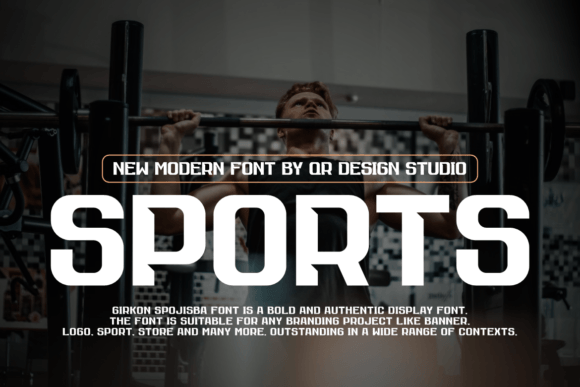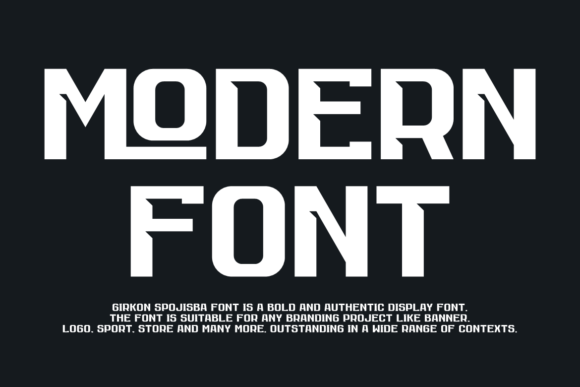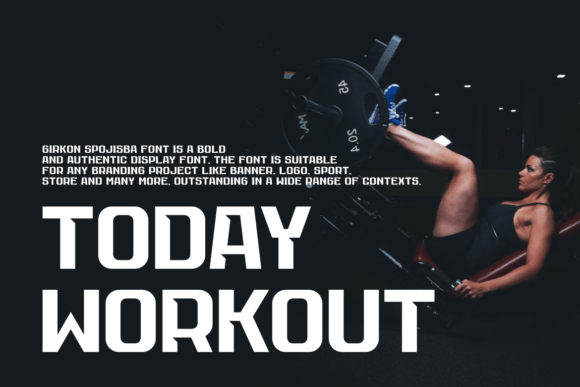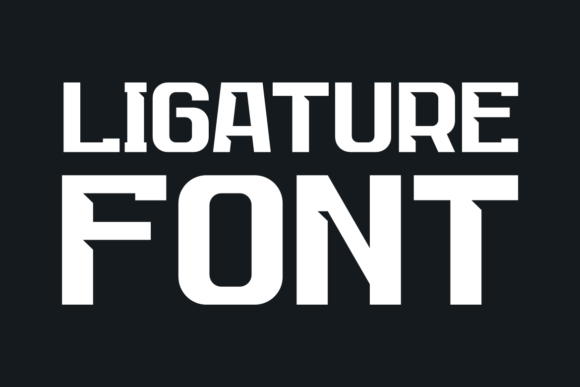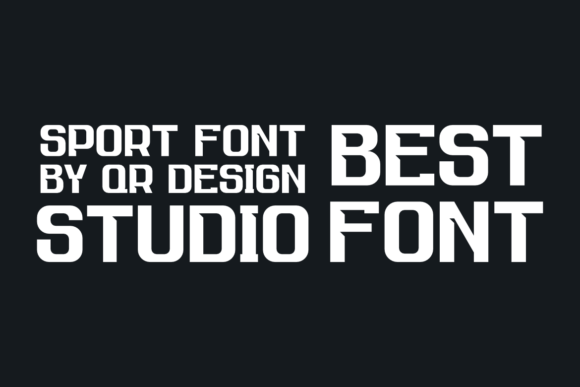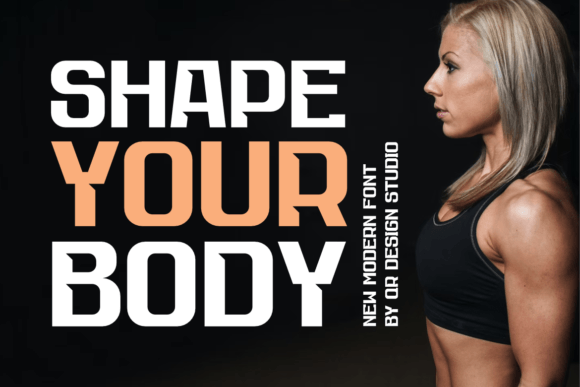
Girkon Spojisba Font: A Bold and Authentic Display Font for Your Branding Projects
In the world of typography, a font can make or break a design. A well-chosen font can elevate your brand’s visual identity, convey the right message, and leave a lasting impression on your audience. If you’re a designer, craftsperson, or entrepreneur looking for a bold and authentic display font, look no further than Girkon Spojisba Font. In this article, we’ll explore the features, benefits, and uses of this versatile font, and why it’s a must-have for your branding projects.
What is Girkon Spojisba Font?
Girkon Spojisba Font is a bold and authentic display font designed to make a statement. With its unique and eye-catching design, this font is perfect for creating logos, sport-related branding, and a wide range of other projects that require a strong visual presence. The font comes in two formats: OTF (OpenType) and TTF (TrueType), making it compatible with most design software and platforms.
Key Features of Girkon Spojisba Font
- Bold and Authentic Design: Girkon Spojisba Font boasts a bold and authentic design that’s sure to grab attention. Its unique character set and carefully crafted letterforms make it stand out from the crowd.
- Versatile and Flexible: This font is suitable for a wide range of branding projects, from logos and sport-related branding to posters, flyers, and more.
Benefits of Using Girkon Spojisba Font
So, why choose Girkon Spojisba Font for your branding projects? Here are just a few benefits of using this versatile font:
- Stand Out from the Crowd: With its bold and authentic design, Girkon Spojisba Font is sure to make your brand stand out from the competition.
- Professional and Polished Look: This font gives your brand a professional and polished look that’s perfect for businesses, organizations, and individuals looking to establish a strong visual identity.
Who Can Use Girkon Spojisba Font?
Girkon Spojisba Font is perfect for a wide range of designers, craftspersons, and entrepreneurs, including:
- Graphic Designers: Add a bold and authentic touch to your branding projects, logos, and marketing materials.
- Crafters and Makers: Use Girkon Spojisba Font to create eye-catching labels, packaging, and branding for your handmade products.
- Entrepreneurs and Small Business Owners: Establish a strong visual identity for your business with a professional and polished font.
- Marketing and Advertising Agencies: Use Girkon Spojisba Font to create attention-grabbing campaigns and marketing materials for your clients.
In conclusion, Girkon Spojisba Font is a bold and authentic display font that’s perfect for any branding project that requires a strong visual presence. With its versatile design, high-quality formats, and ease of use, this font is a must-have for designers, craftspersons, and entrepreneurs looking to establish a professional and polished visual identity. Whether you’re creating logos, sport-related branding, or marketing materials, Girkon Spojisba Font is the perfect choice.